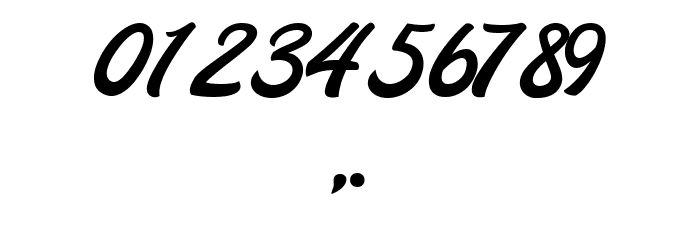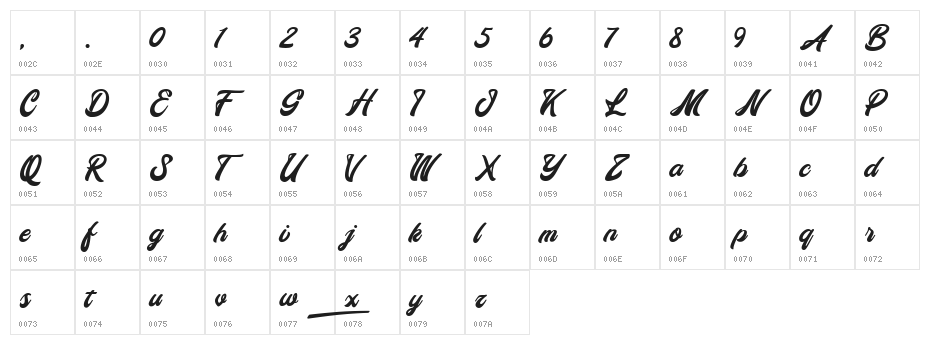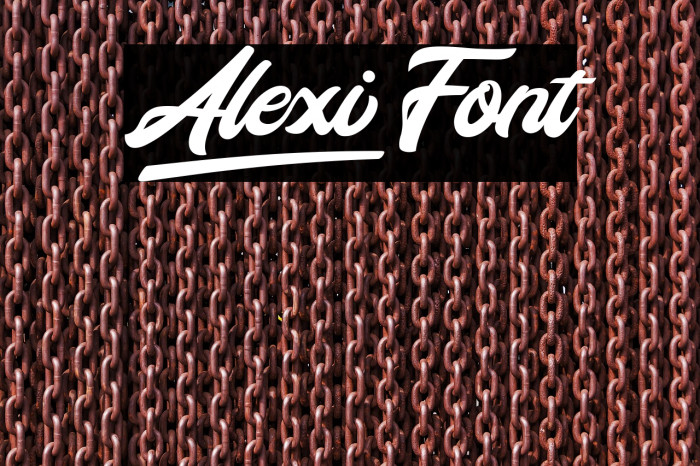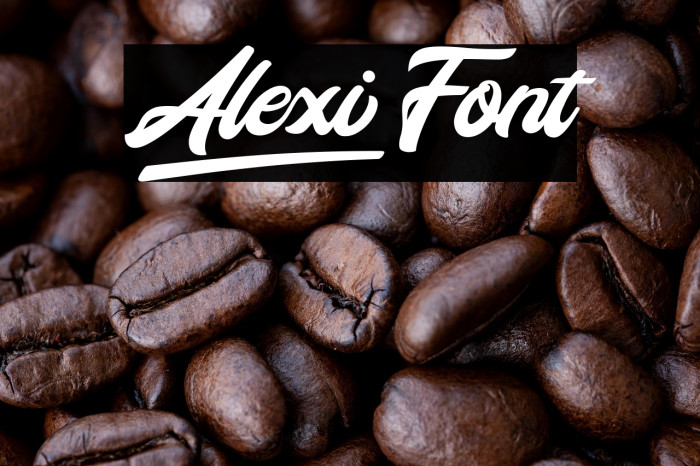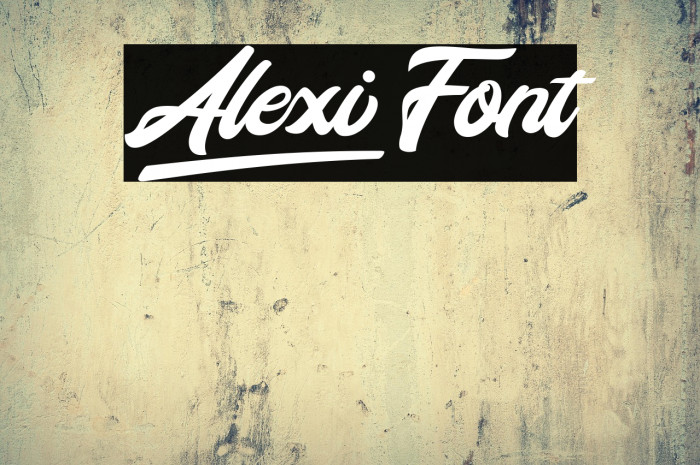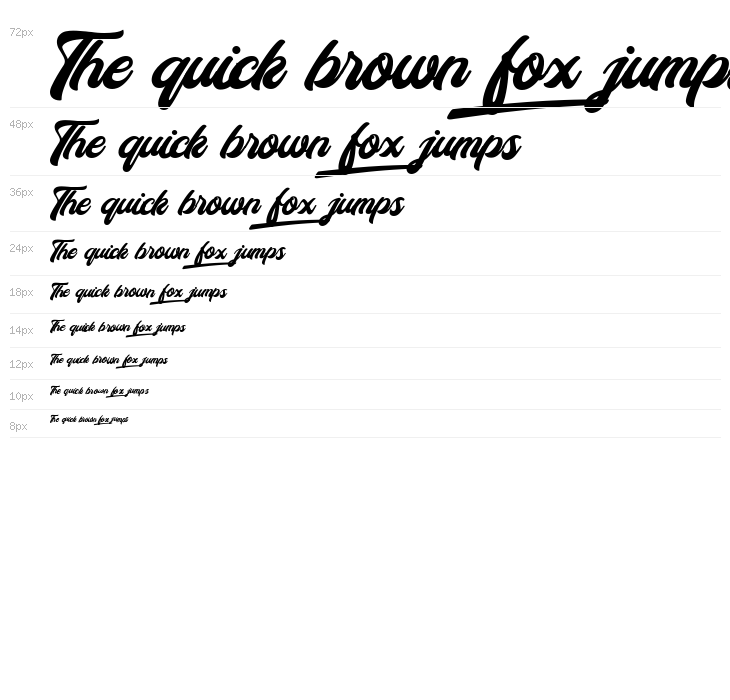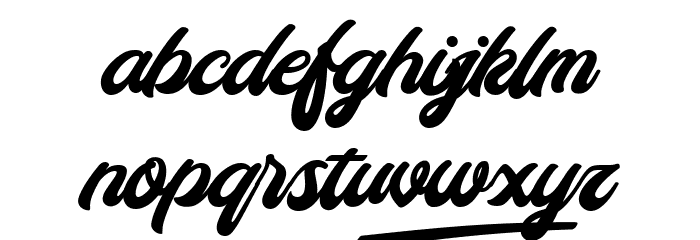
Alexi Font
Alexi Description
This font features a bold, cursive style with a dynamic and flowing appearance. The letters are interconnected, giving it a handwritten feel that is both elegant and energetic. The uppercase letters are slightly larger and more pronounced, while the lowercase letters maintain a consistent flow. The numbers and special characters are designed to match the overall style, ensuring a cohesive look across all text. The strokes are thick, providing a strong presence, and the slanted orientation adds to its lively character.
| Proposed Projects | Ideal for branding, invitations, greeting cards, and creative projects that require a personal touch. |